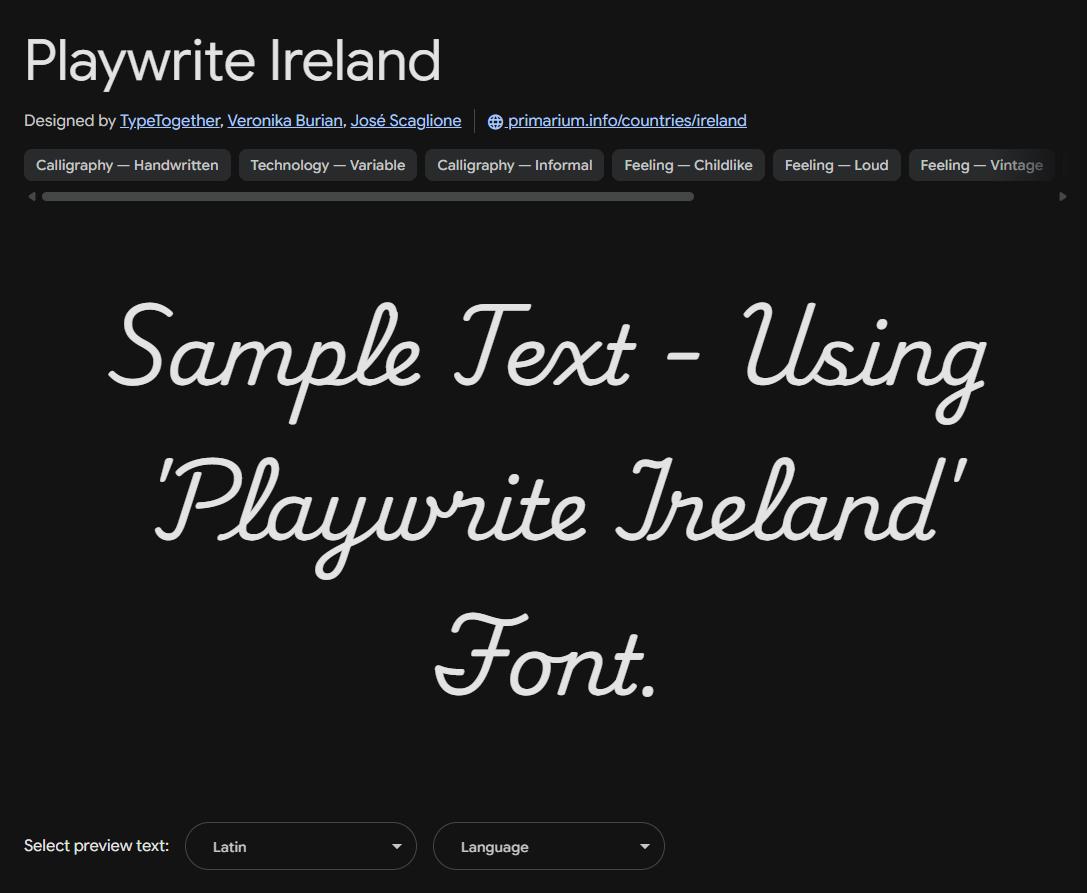
Playwrite Ireland, meticulously engineered by TypeTogether's Veronika Burian and José Scaglione, represents a sophisticated synthesis of pedagogical tradition and modern variable font technology designed to mirror the regional nuances of Irish primary education. By utilizing a singular variable axis to modulate weight and stylistic intensity, the typeface employs fluid interpolation to bridge the gap between static digital glyphs and the kinetic requirements of foundational handwriting instruction. This high-performance script architecture leverages advanced OpenType features to maintain anatomical integrity across its weight range, ensuring that the humanist strokes and rhythmic kerning parameters remain semantically optimized for early-stage legibility and the tactile transition to digital ink environments.
The Playwrite Ireland typeface represents a sophisticated intersection of educational heritage and modern variable font (VF) technology, functioning as a digital translation of the Irish primary school cursive model. This informal calligraphic family utilizes a multi-axis architecture to navigate between its rugged, organic stroke terminals and an active, playful rhythm that captures a distinctly happy and childlike energy. By leveraging fluid interpolation, the typeface transforms the rigid constraints of traditional penmanship into a loud, expressive vintage aesthetic that maintains high legibility while embracing the joyful imperfections of handwritten script. Its unique design logic reflects a shift toward hyper-localized typography, offering a semantic bridge between the nostalgic familiarity of classroom blackboard aesthetics and the high-performance demands of contemporary responsive web environments.
Playwrite Ireland, while a triumph of localized pedagogical script design by TypeTogether, is fundamentally unsuitable for high-density data environments such as financial ledgers, legal contracts, or medical dosage labeling where instantaneous character discrimination is a safety requirement. Because its architecture is predicated on the continuous cursive join logic of primary school education standards, the typeface lacks the discrete glyph isolation and high x-height neutrality necessary for rapid-fire information scanning. In low-resolution digital interfaces or small-scale print below 9 points, the intricate stroke modulation and variable weight interpolation of its script terminals risk severe stroke collision, which compromises legibility and fails to meet WCAG 2.1 accessibility standards for users with low vision. The fluid, rhythmic baseline and regional ligature patterns-though authentic for handwriting instruction-introduce excessive cognitive load in professional technical documentation, where the absence of a stable vertical stress and clear alphanumeric differentiation can lead to the misinterpretation of critical data strings.
Playwrite Ireland features a continuous cursive script modeled after modern Irish educational handwriting standards, characterized by its fluid joins and rhythmic flow. The typeface utilizes a specific slope and entry-stroke logic consistent with the Primary Language Curriculum requirements for letterform construction.
This font is ideal for educational materials, instructional worksheets, and localized branding aimed at the Irish primary school sector. Its implementation within digital pedagogical platforms provides a seamless transition between handwriting practice and screen-based literacy development.
Playwrite Ireland is designed with a range of weights to allow for emphasis and clear information architecture in teaching documents. The variable font axes enable precise control over stem thickness, maintaining stroke contrast integrity across different pixel densities.
The cursive flow mimics natural handwriting, which can challenge legibility at very small sizes for users unfamiliar with joined scripts. Legibility is maintained through sophisticated kerning pairs and contextual alternates that prevent overlapping ink traps in the digital rendering engine.
It pairs best with clean, neutral sans-serifs like Roboto or Montserrat to provide a functional contrast to its flowing curves. Using a geometric grotesque as a secondary face creates a balanced visual hierarchy that isolates the script's stylistic flourishes from densely packed metadata.
Playwrite Ireland is generally discouraged for long-form body text at small sizes due to its intricate cursive connections. When rendered below 12px, the x-height and ascending strokes may cause visual crowding, leading to a significant drop in the reading speed metric.
The typeface includes various OpenType features such as contextual alternates to ensure letters connect fluidly regardless of their sequence. These glyph substitutions are managed by the 'calt' feature, which dynamically adjusts joiners based on the preceding character's exit point.
In high-resolution print, the typeface preserves its smooth curves and elegant joins, making it excellent for posters and certificates. The vector paths are optimized to prevent aliasing, ensuring that the subtle nuances of the Irish cursive style remain sharp at 300 DPI and above.
This font was specifically developed for children's education to align with the way Irish students are taught to write in school. Research into the Playwrite project indicates that aligning digital fonts with local handwriting standards significantly improves a child's letter recognition and motor skill development.